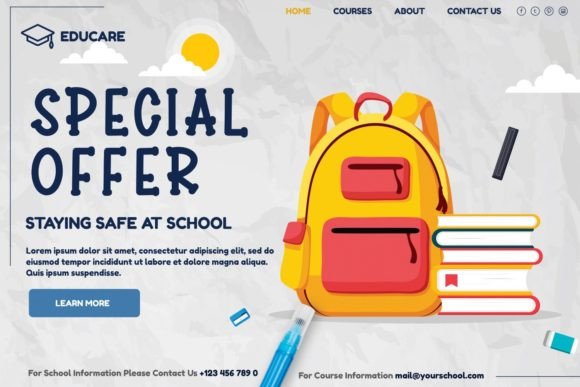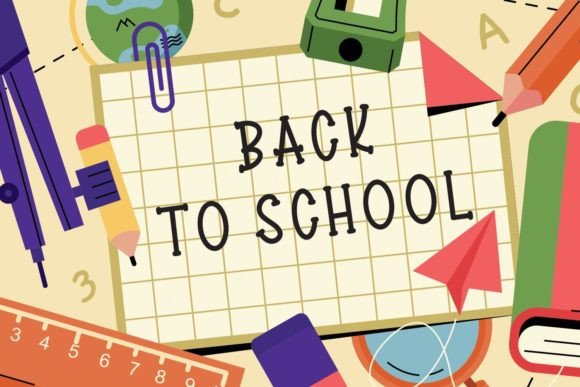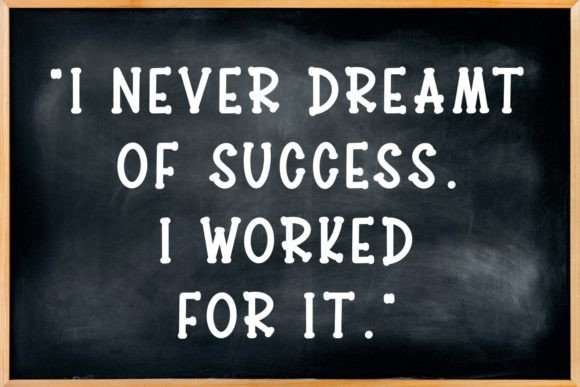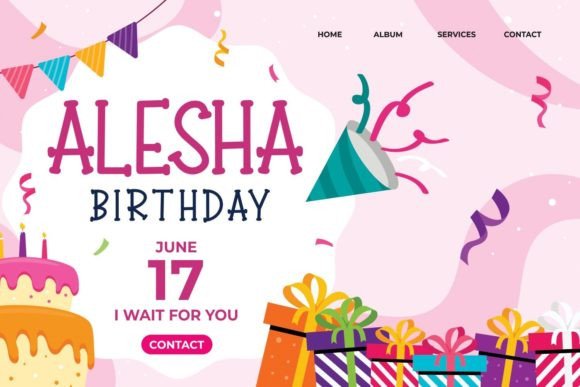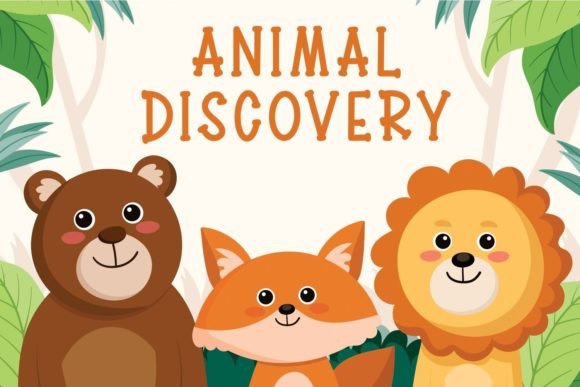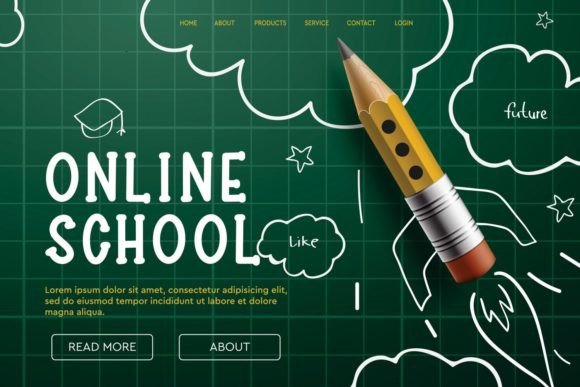
Introducing Children Writing Font: The Perfect Handwritten Font for Your Creative Projects
Are you a designer, crafter, or DIY enthusiast looking for a font that can add a touch of personality and whimsy to your projects? Look no further than the Children Writing Font! This fun, trendy, and cute handwritten font is perfect for a wide range of creative applications, from Cricut projects and Procreate designs to branding, crafting, and more.
What Makes Children Writing Font So Special?
The Children Writing Font is a versatile and charming font that is sure to capture the hearts of designers and crafters alike. Its incredibly versatile style makes it perfect for a wide range of projects, including:
- Cricut projects: Add a personal touch to your Cricut designs with this adorable font.
- Procreate designs: Create stunning digital art with this beautiful handwritten font.
- Crafting: Use it to create unique and personalized crafts, such as cards, gift tags, and more.
- Branding: Add a touch of whimsy to your brand identity with this fun and trendy font.
- Decorating: Use it to create beautiful and eye-catching decorations, such as wall art and signs.
- Farmhouse designs: Add a rustic touch to your farmhouse designs with this charming font.
- Shirts: Create custom and personalized t-shirts with this adorable font.
- SVG designs: Use it to create stunning SVG designs for your cutting machine.
- Blogs: Add a personal touch to your blog with this beautiful handwritten font.
- Logos: Create a unique and memorable logo with this versatile font.
- Invitations: Use it to create beautiful and personalized invitations for any occasion.
- Frames: Add a touch of elegance to your frames with this stunning font.
- Book covers: Create a eye-catching book cover with this adorable font.
- Stationery: Use it to create beautiful and personalized stationery, such as notebooks and journals.
- Marketing: Add a touch of personality to your marketing materials with this fun and trendy font.
- Magazines: Use it to create stunning magazine layouts with this versatile font.
Why Choose Children Writing Font?
There are many reasons why you should choose Children Writing Font for your creative projects. Here are just a few:
- Unique and eye-catching: This font is sure to grab attention and add a touch of personality to your projects.
- Versatile: It can be used for a wide range of creative applications, from digital designs to print projects.
- High-quality: It is a high-quality font that is designed to look great in any project.
Tips and Tricks for Using Children Writing Font
Here are a few tips and tricks to help you get the most out of Children Writing Font:
- Experiment with different colors: Try pairing the font with different colors to create a unique and eye-catching design.
- Use it with other fonts: Combine Children Writing Font with other fonts to create a stunning and layered design.
- Play with size and scale: Experiment with different font sizes and scales to add visual interest to your design.
- Add embellishments: Use embellishments, such as glitter or stickers, to add a touch of personality to your design.
In conclusion, Children Writing Font is a fun, trendy, and cute handwritten font that is perfect for a wide range of creative projects. Its incredibly versatile style makes it a great choice for designers, crafters, and DIY enthusiasts alike. With its ease of use, high-quality design, and unique personality, it’s sure to become a favorite in your font library. So why wait? Download Children Writing Font today and start creating spectacular designs!